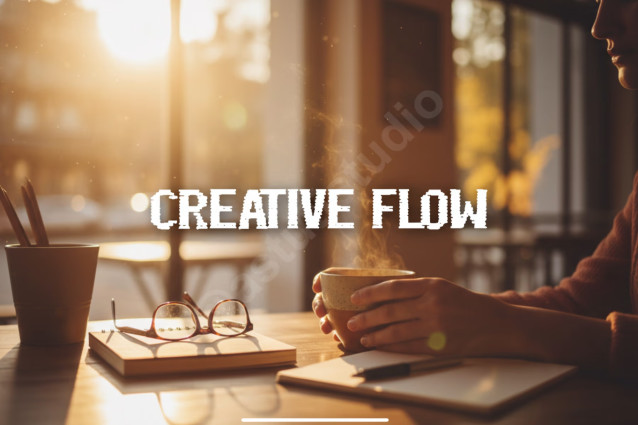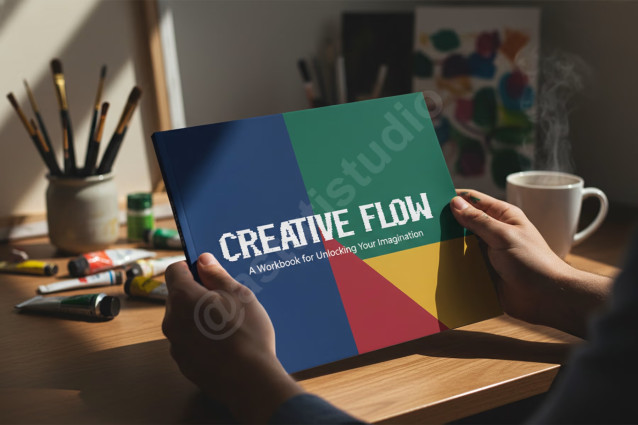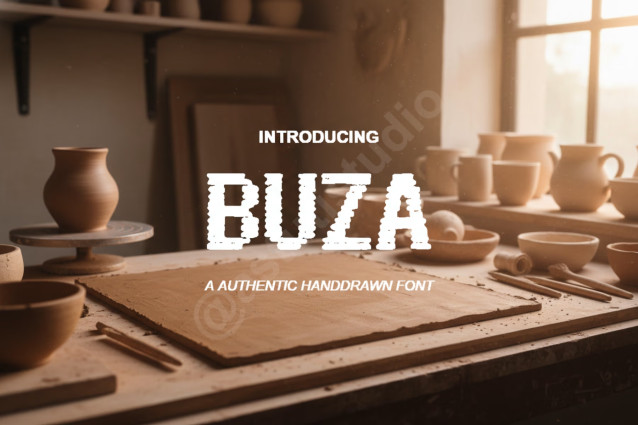
Buza Font
BUZA is the definitive choice for projects demanding unparalleled sophistication. This modern, elegant serif typeface blends classical structure with contemporary refinement, making it the hallmark of premium design. Buza exudes quiet confidence, perfect for defining a luxury brand identity, high-fashion editorials, or impactful social media campaigns.
• Comprehensive character set including uppercase, lowercase, numbers, and punctuation
• Extensive multilingual support for global reach
• Optimized kerning for professional-grade typesetting
Optimized Use Cases
• Branding and Identity: Create memorable logos and corporate stationery.
• Editorial Design: Perfect for clean magazine layouts and book covers.
• Digital Marketing: Enhance social media graphics and website headers.
• Wedding and Events: Ideal for modern, minimalist invitations and signage.
• Packaging: Add a touch of premium quality to product labels and boxes.